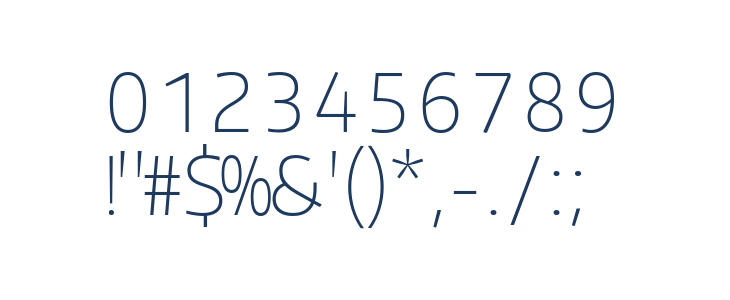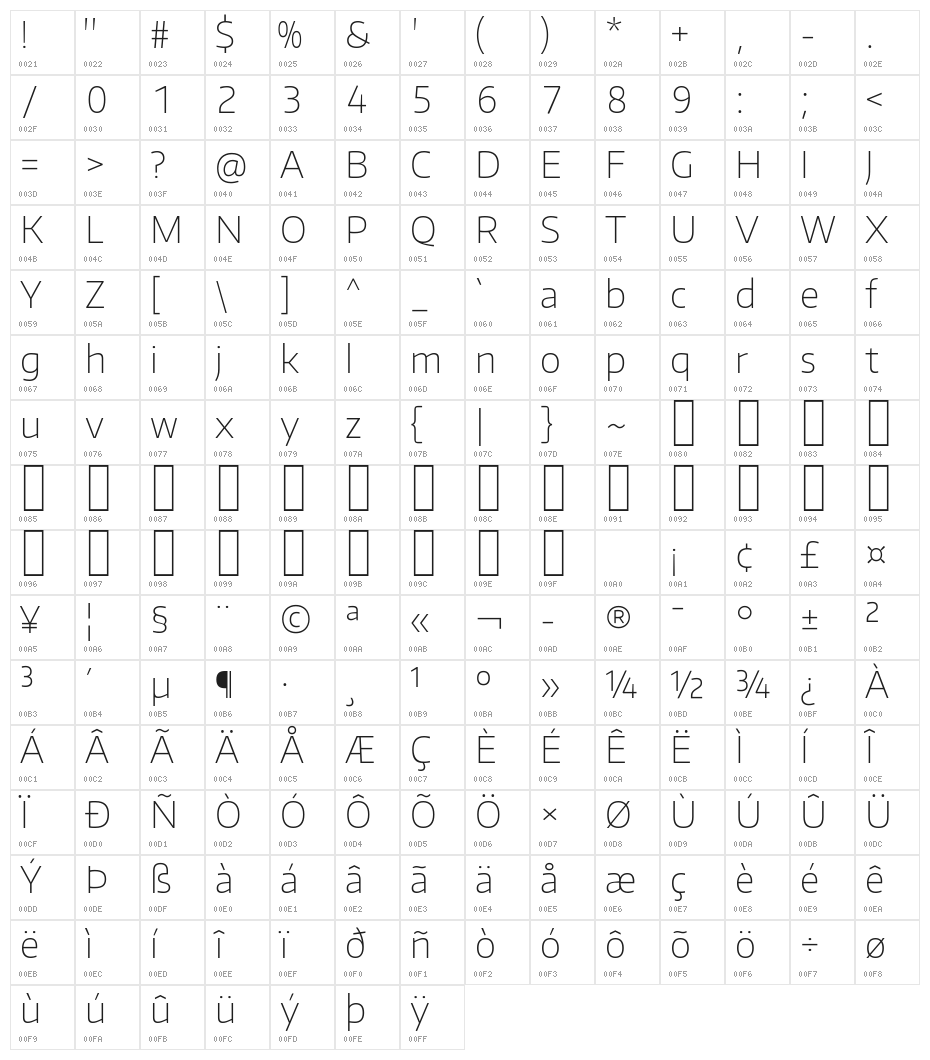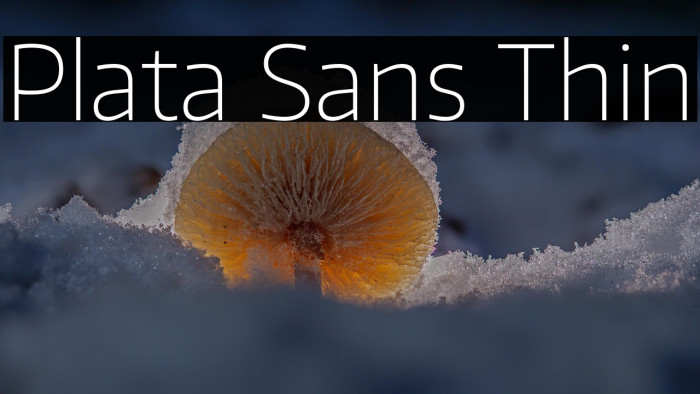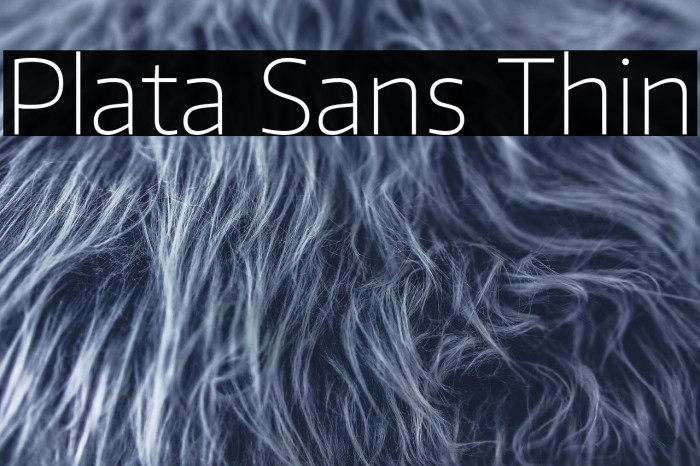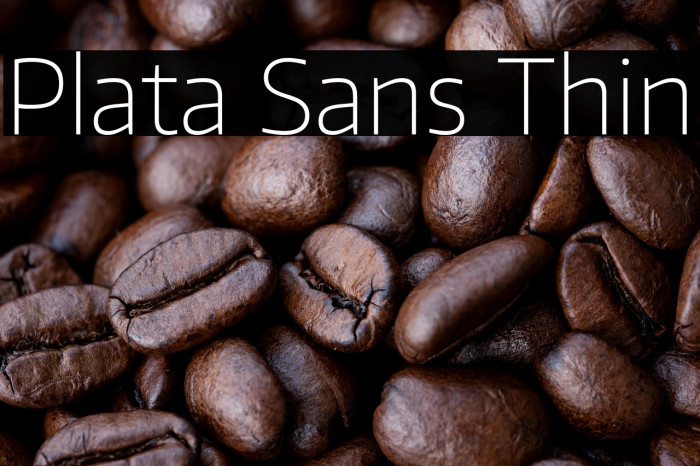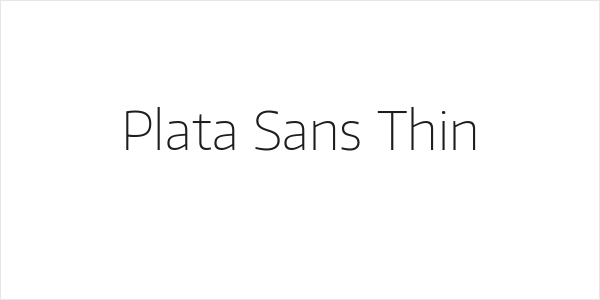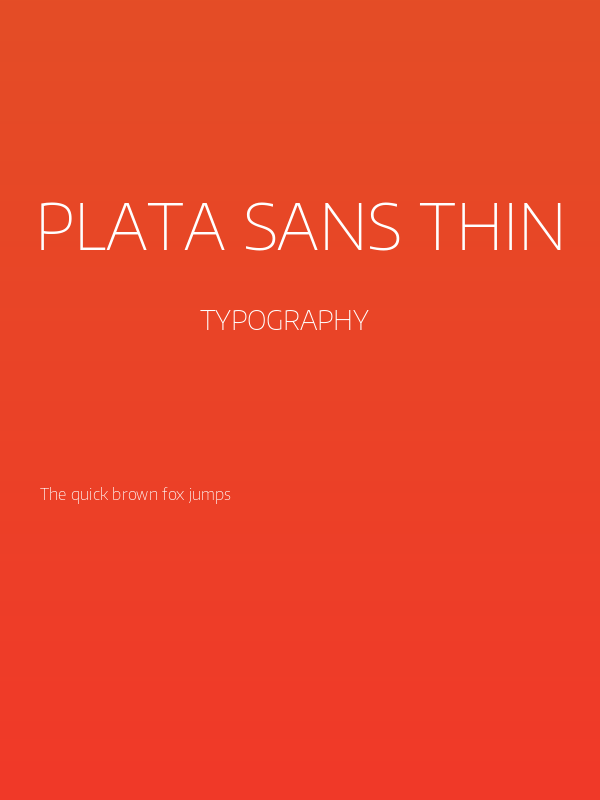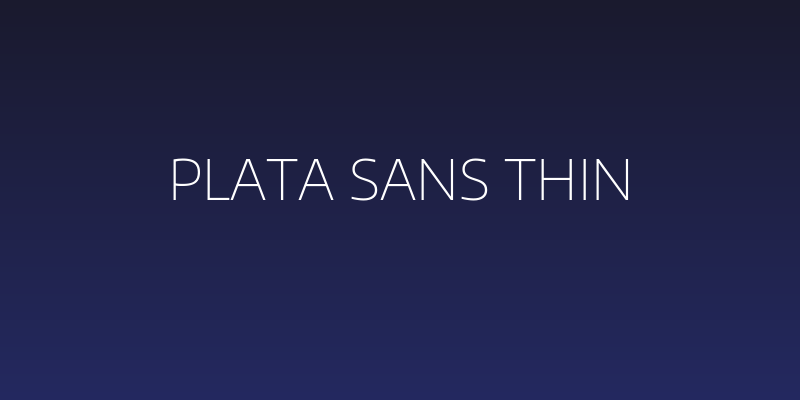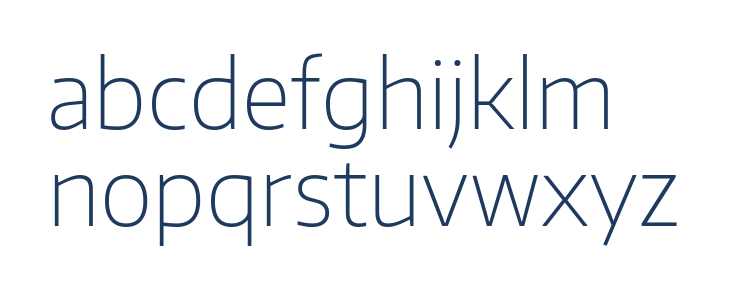
This font features a clean and modern sans-serif design, characterized by its thin and elegant strokes. The letters are well-proportioned with a uniform stroke width, giving it a sleek and minimalist appearance. The uppercase and lowercase letters are distinct, with a slight geometric influence that enhances readability. The numerals are clear and balanced, matching the overall aesthetic of the alphabet. Special characters are included, maintaining the same thin and refined style. This font is versatile, suitable for various design applications where a contemporary and sophisticated look is desired.
| Proposed Projects | Ideal for branding, web design, editorial layouts, and minimalist posters. |